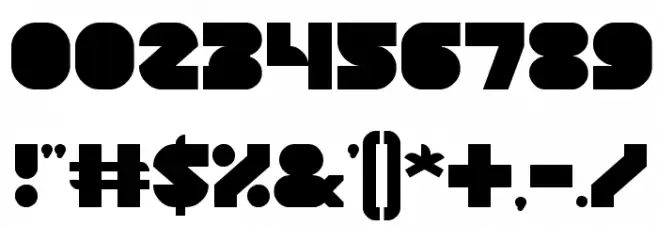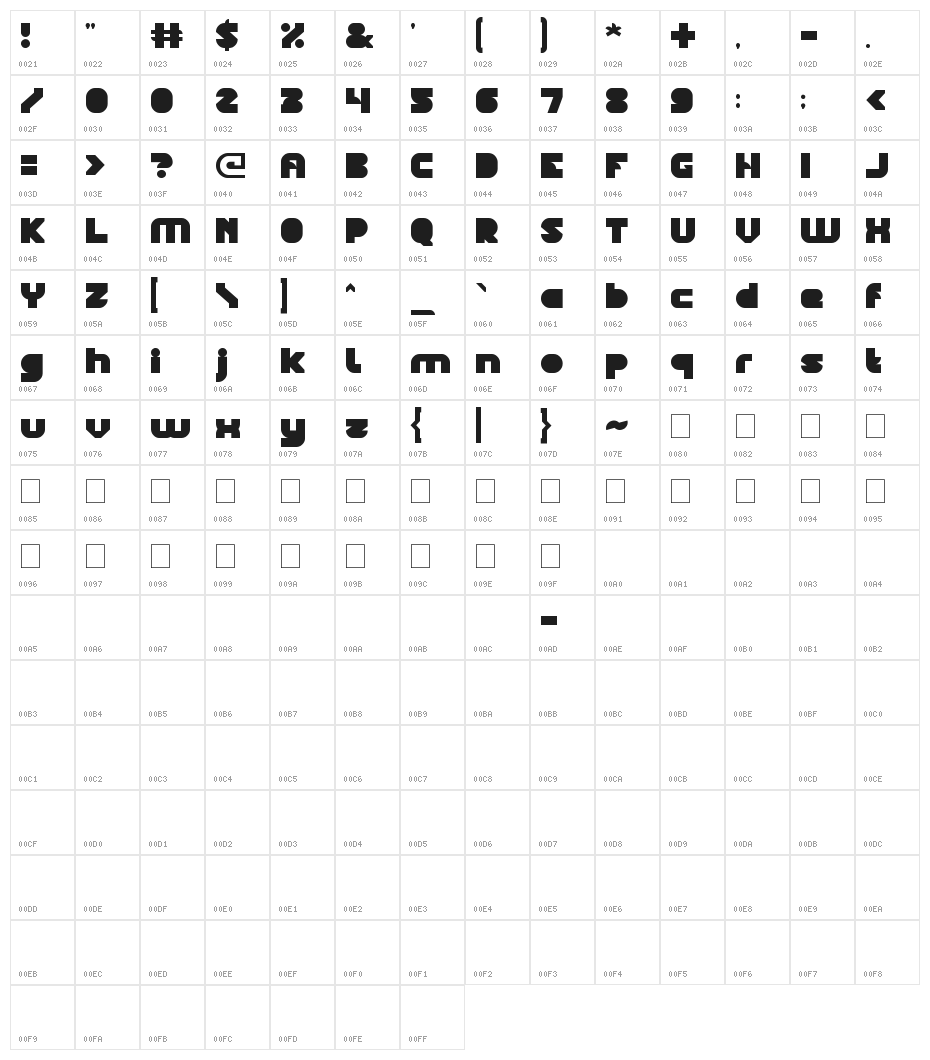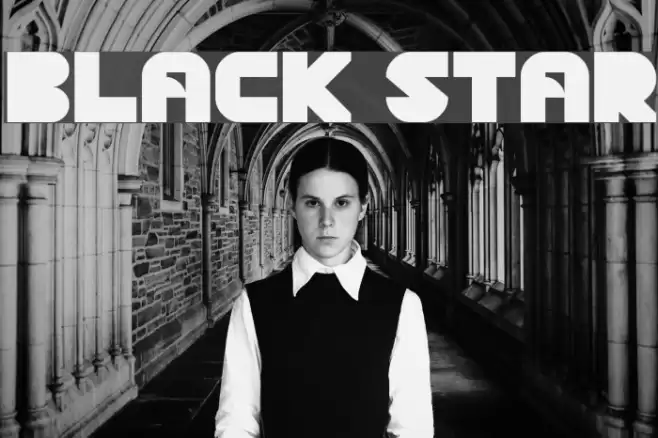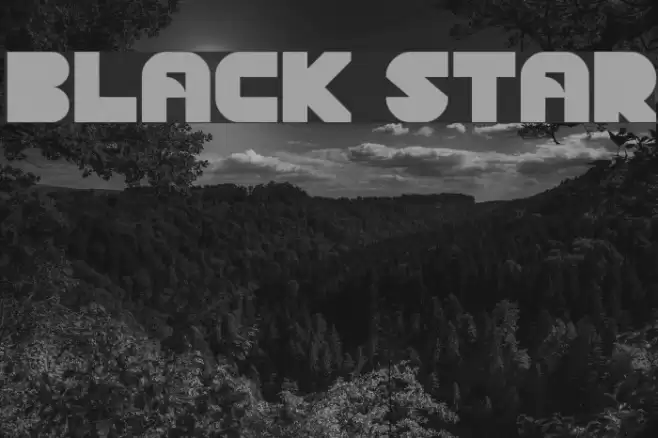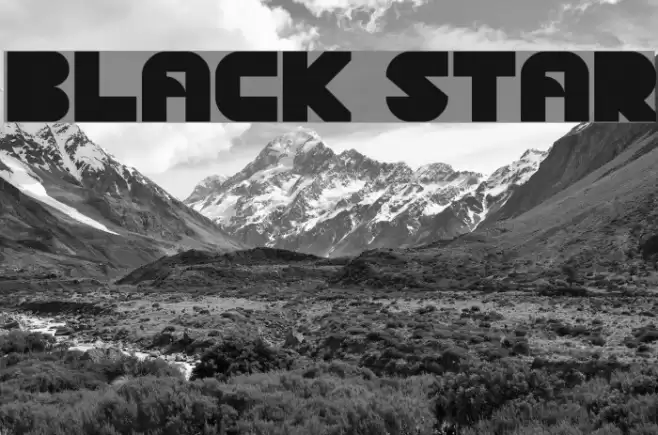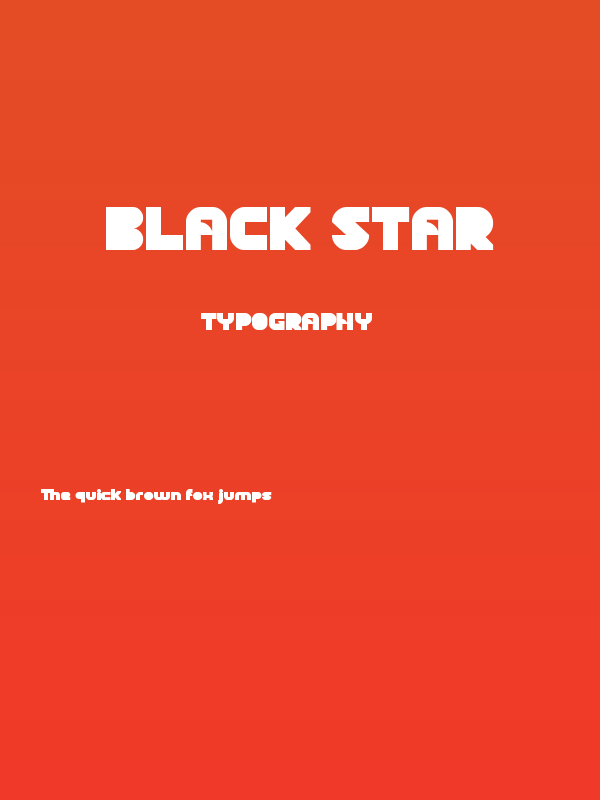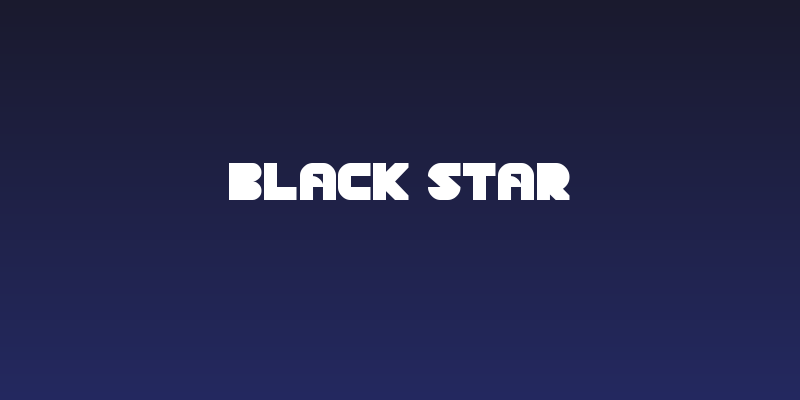
BLACK STAR Font
BLACK STAR Description
This bold and striking font features a geometric, block-like design with a modern flair. The characters are constructed with thick, uniform strokes that create a strong visual impact. The uppercase and lowercase letters maintain a consistent style, with rounded edges that soften the overall appearance. The numbers and special characters follow the same design principles, ensuring a cohesive look across all elements. This font's unique style makes it ideal for projects that require a bold statement.